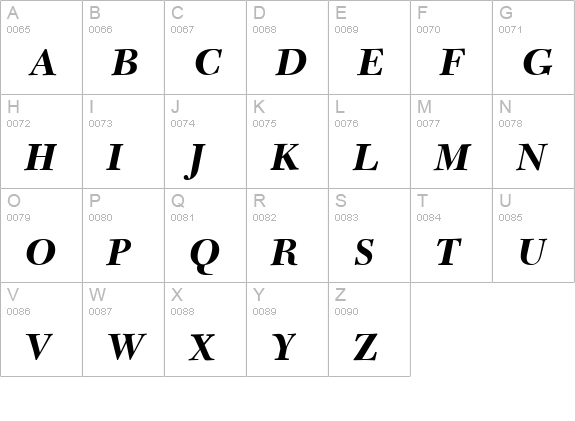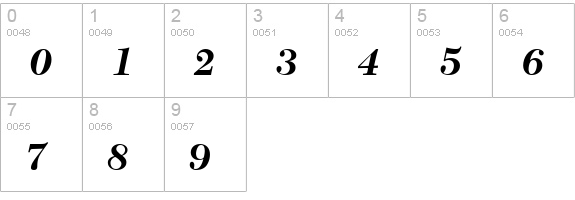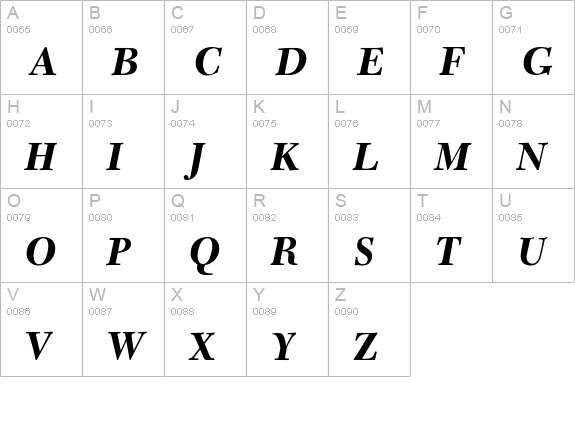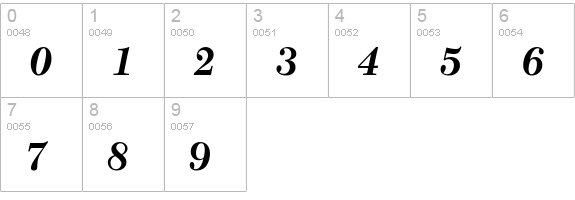
Tycoon Black SSi Bold Italic Font Details
Tycoon Black SSi Bold Italic is a maximum-weight, dramatic, italic variant in the Tycoon typeface family \xE2\x80\x94 well suited to maximum-impact headlines, posters, and packaging.